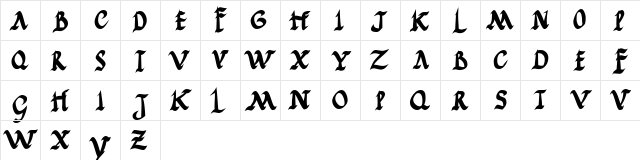
Complete JGJ Roman Rustic Bold glyph index. Displaying only characters natively supported by JGJ Roman Rustic Bold font.
JGJ Roman Rustic is a composed and adaptable typeface that performs quietly and consistently across a wide range of design contexts. Its bold stroke weight gives it real presence on the page.